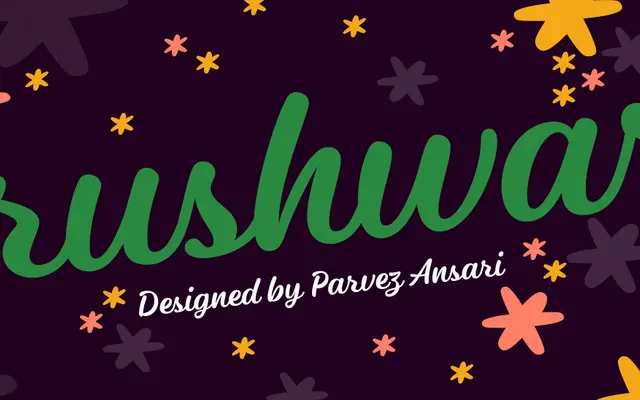
A single-weight brush script from Indian Type Foundry intended for display and hand-lettered visual contexts.
A brush script offered as a single Regular weight, positioned within ITF's script category alongside other expressive and hand-drawn faces. With only one style in the family, it functions primarily as a display face for headlines, packaging and short-form copy that calls for an informal, gestural quality. Related fonts on the ITF site include Bitscript and Blonde Script, pointing to a consistent interest in expressive Latin script faces.
Listed under Script classification by ITF; the name and category suggest a brush-drawn script typeface typical of hand-lettered display work.